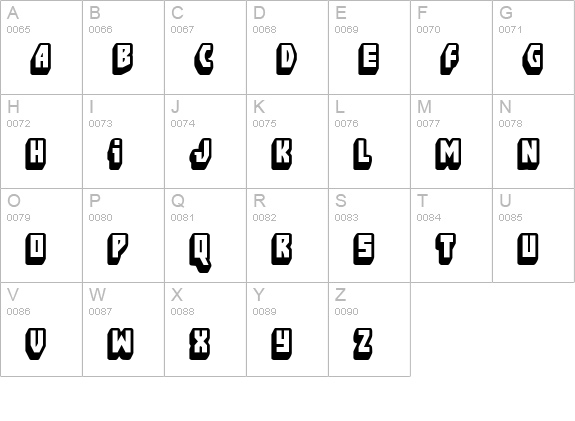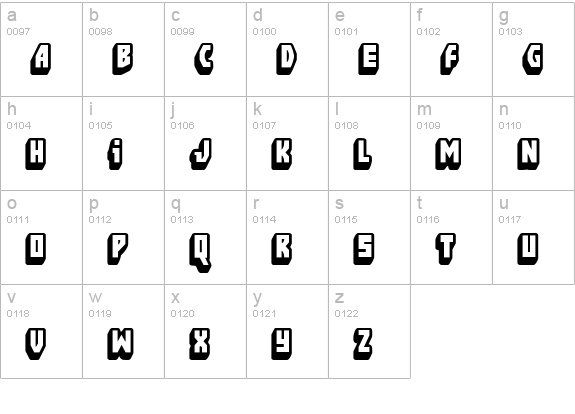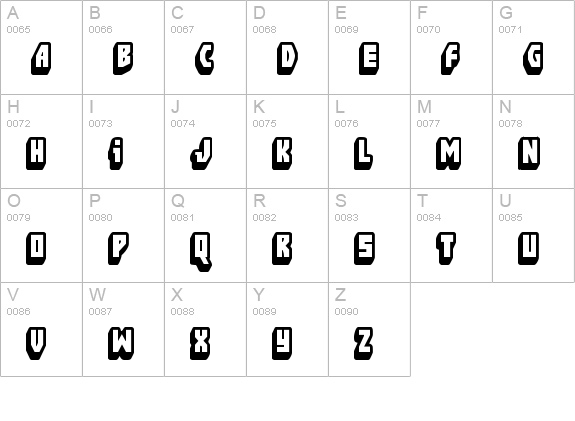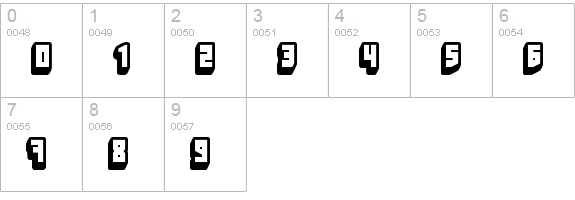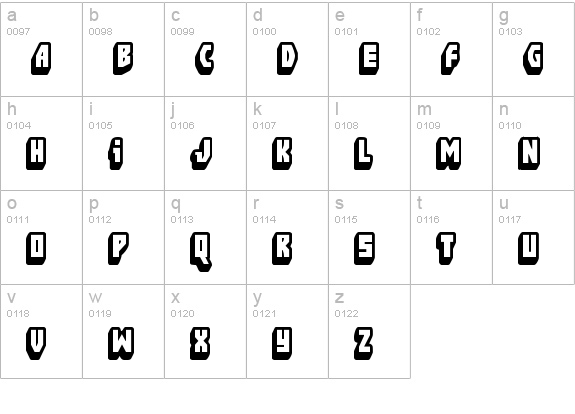
FT Blockbusta is a bold and eye-catching display font that demands attention with its strong, blocky letterforms. Perfect for headlines, posters, and branding projects, this font exudes confidence and power. Its thick strokes and clean lines make a statement while remaining easily readable. What makes FT Blockbusta even more appealing is that it is available for free! Yes, you read that right - you can download this striking font at FontsMarket.com without spending a dime. So, unleash your creativity and make a bold statement with FT Blockbusta today!